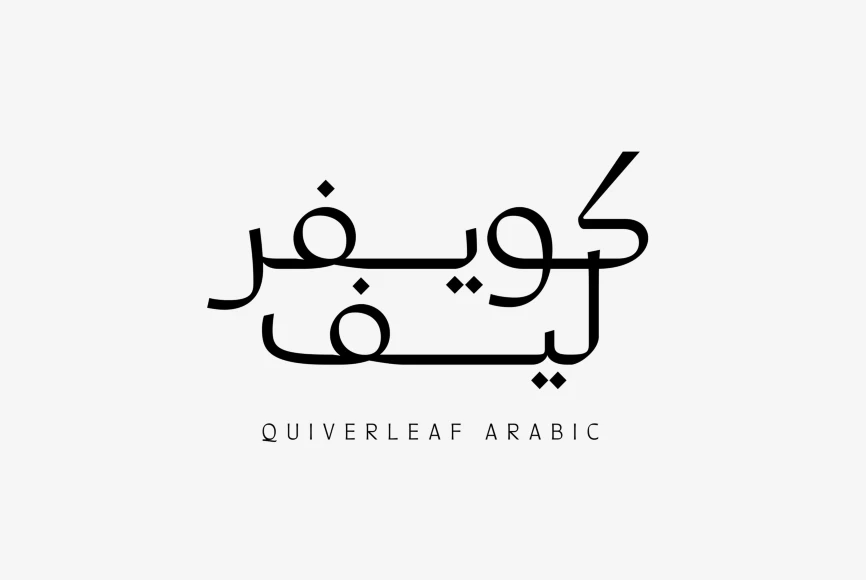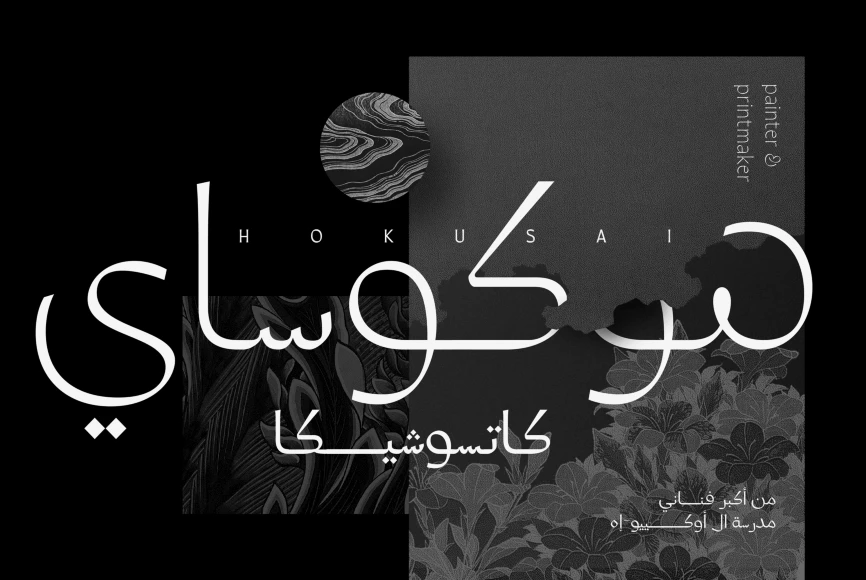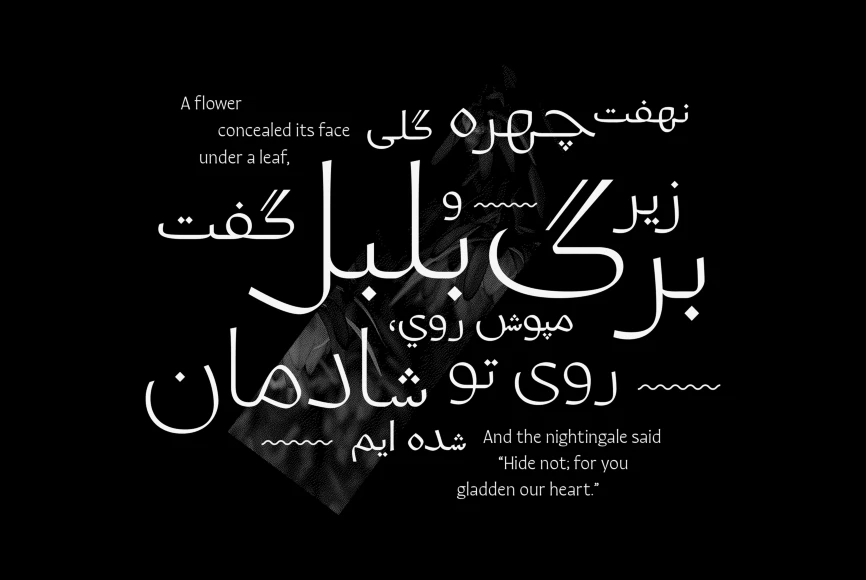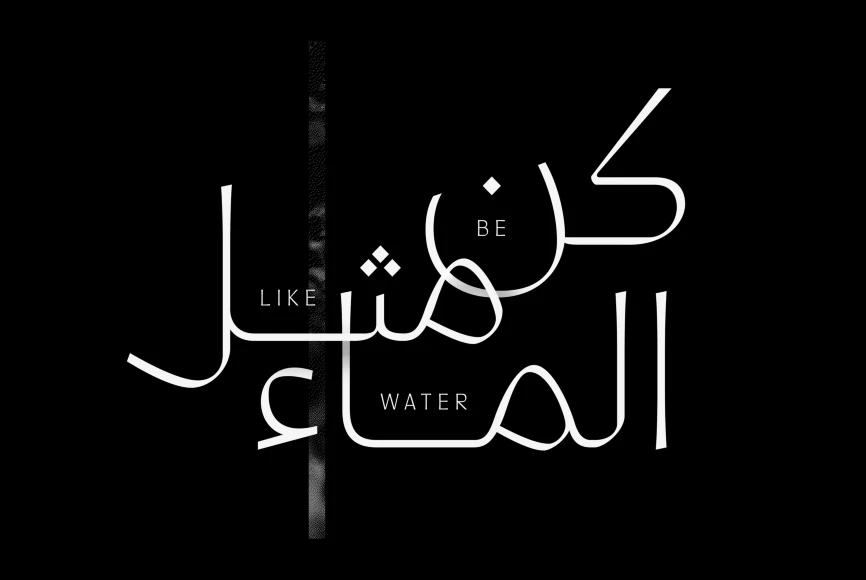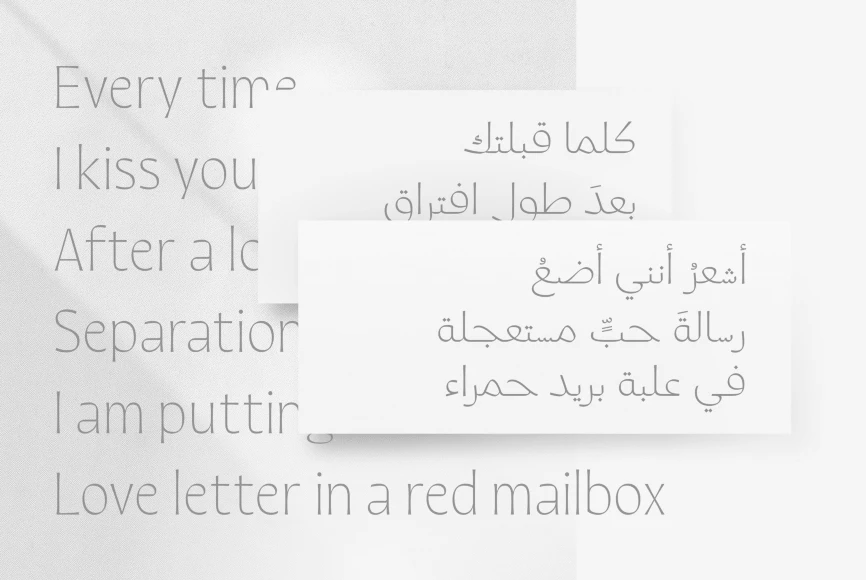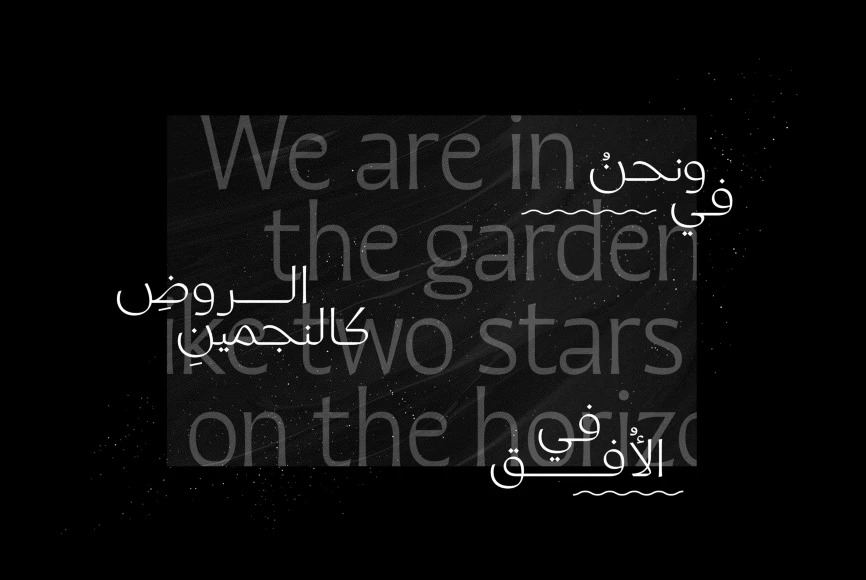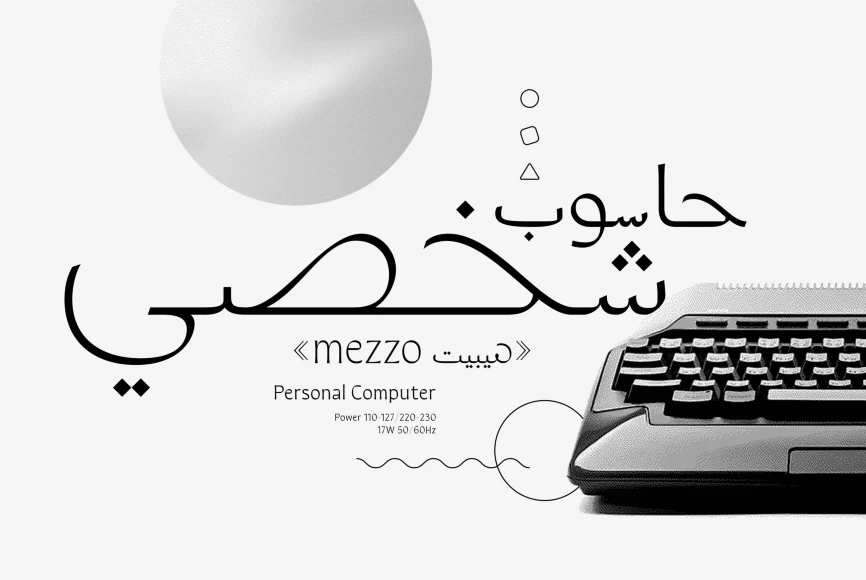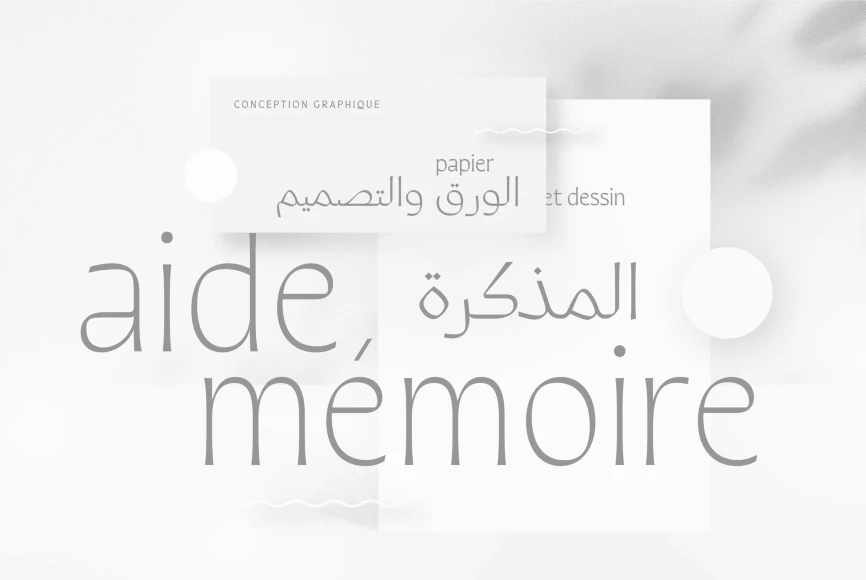
Quiverleaf Arabic
Quiverleaf Arabic CF brings the graceful flowing movement of the original humanist Quiverleaf to the Arabic script. The shapes appear ribbon-like, effortlessly gliding from letter to letter. Quiverleaf’s versatile design allows for beautiful text and airy headlines, making it an ideal choice for print packaging, global brands, and oversized posters. Five weights — delicate thin to a hearty extra bold — cover Latin and Arabic scripts in an expressively gorgeous and visually unified font family.